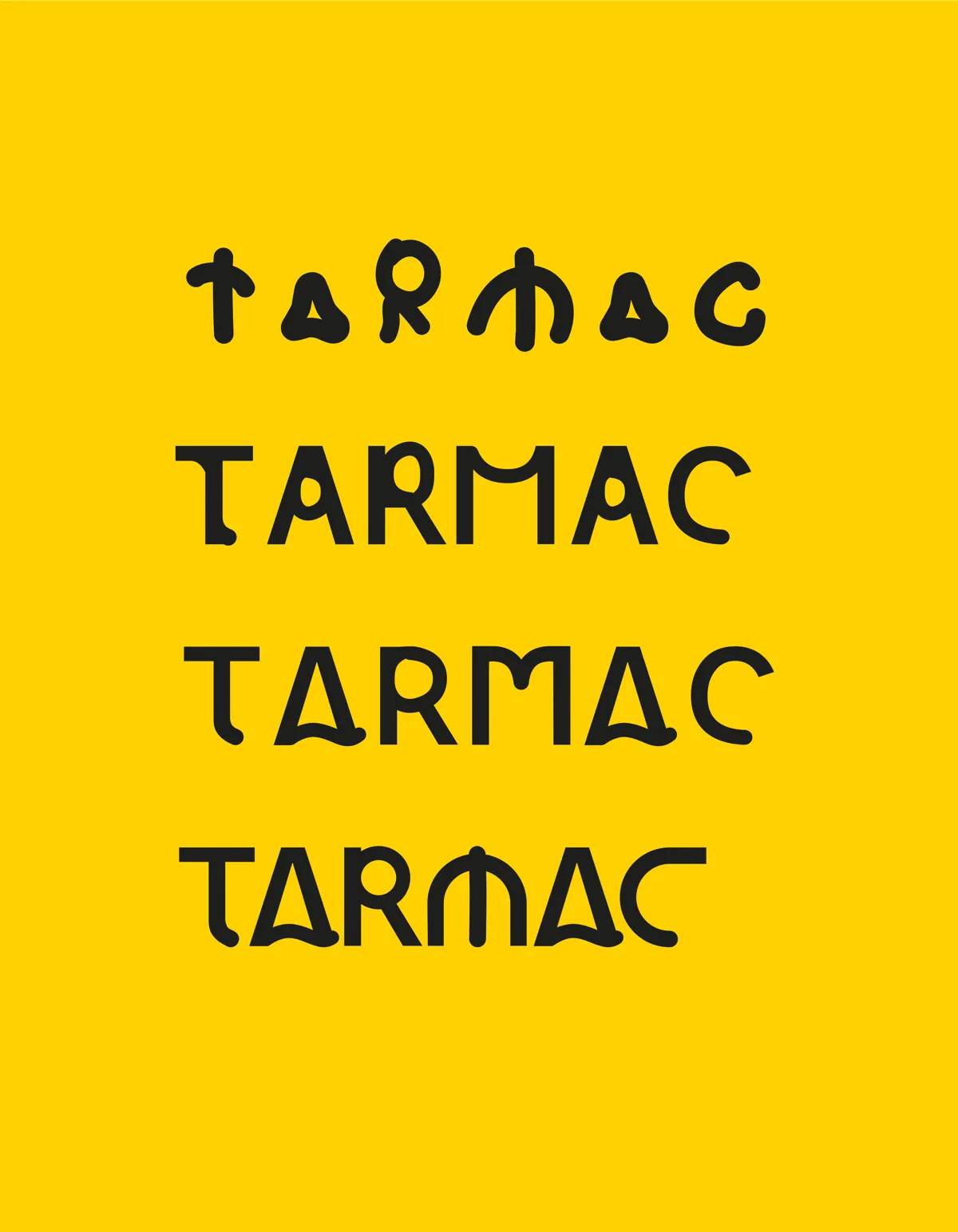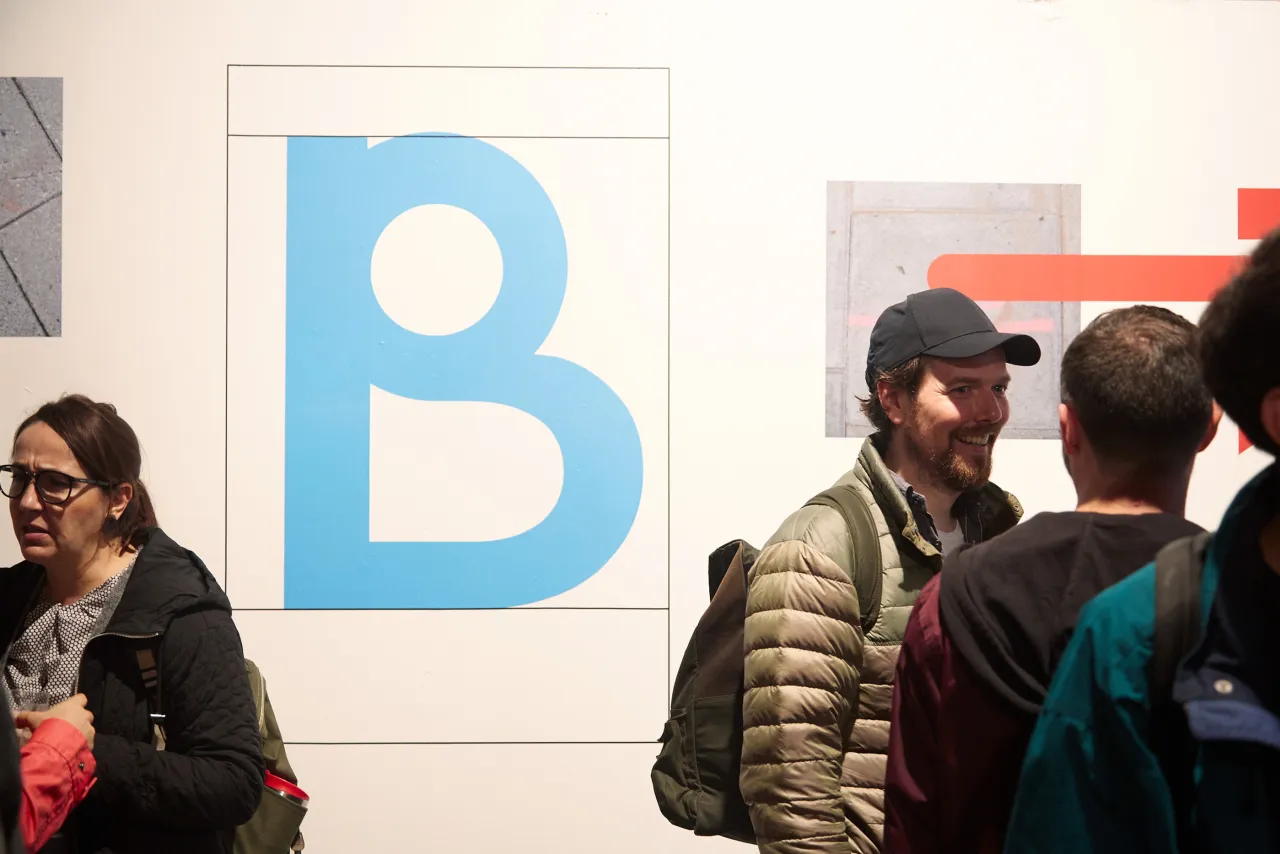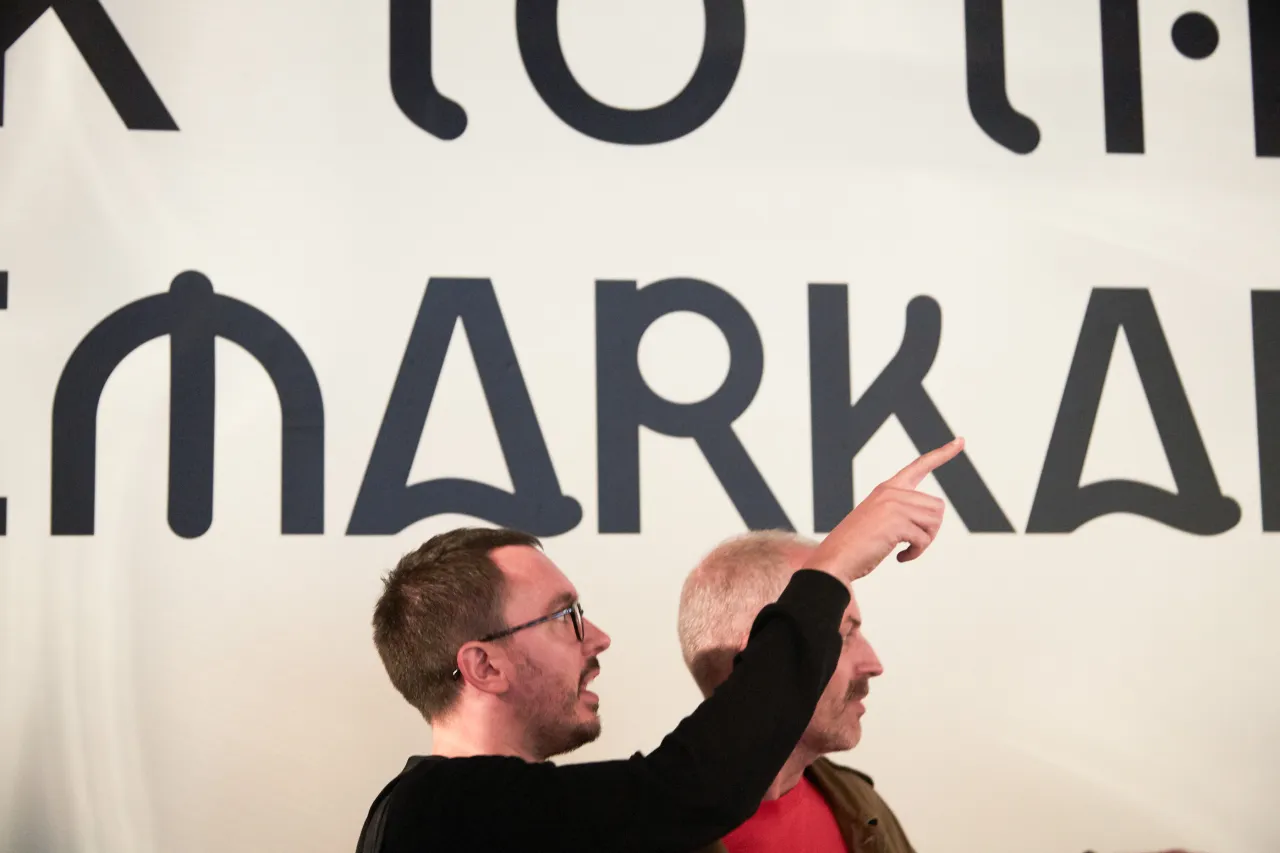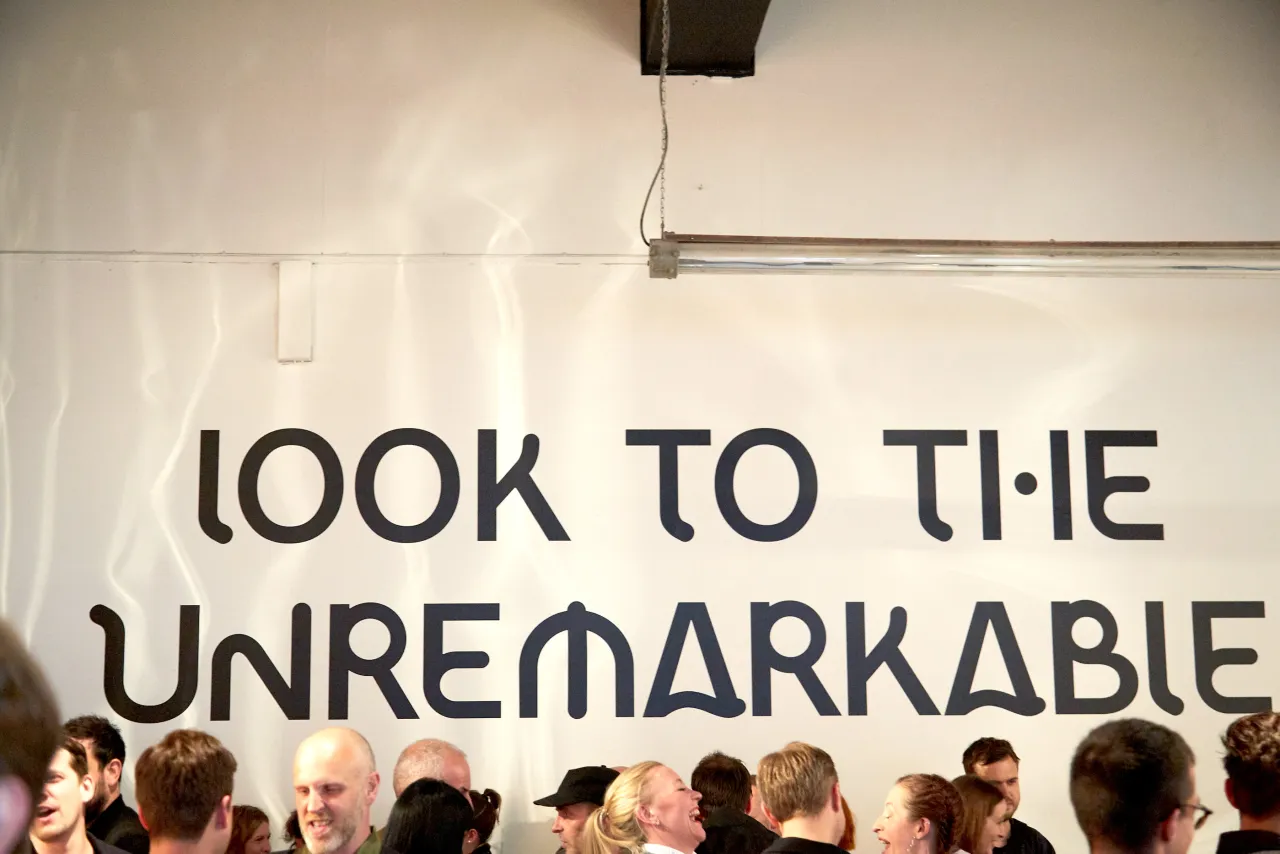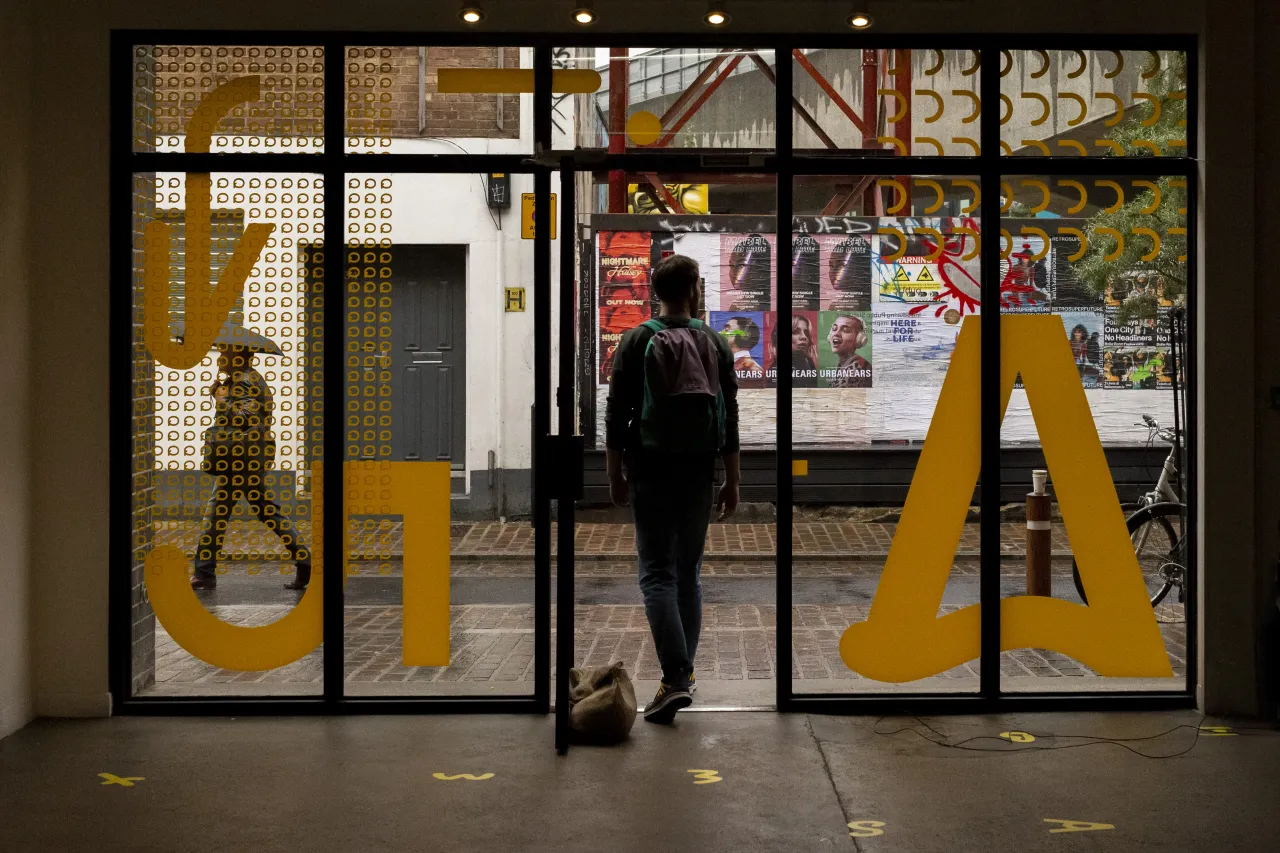
'Looking at the unremarkable', Public creates its own custom display typeface
London creative studio Public has produced a custom display typeface, Public Slab Sans. And you might be surprised to learn how its inspiration came from the "unremarkable".
Looking to the often-unnoticed utility street markings that exist on roads and pavements everywhere, Public explored various different forms and found a complex language of marks and symbols that – while discernible to the numerous utility contractors at work on our streets – is almost totally ambiguous to the untrained eye.
Experimenting with the markings eventually led to the creation of Public Slab Sans, a typeface which seeks to balance the spontaneity of the marks with the exacting structure of a digital typeface. "The resulting design is a distinctive combination of round curves and sharp corners, which reflects the fluid nature of the markings and aims to retain some of the ambiguity of the original forms," explains Public. The typeface, in fact, includes various arrows, which are a common symbol used in road traffic repair communications.
The project’s creative lead and graphic designer Joe Powderham said: "We were drawn to the coded graphic language of the temporary marks spray painted on the streets around our studio, finding a compelling beauty in them which ultimately inspired Public Slab Sans."